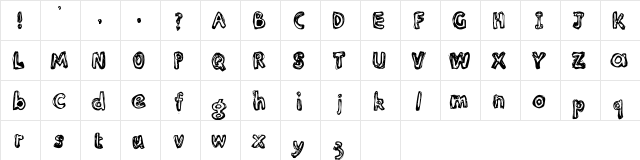
Inlines Rough
| Style | Rough |
Design Context for Inlines Typeface
Inlines trades polish for personality, using distressed and eroded forms to bring grit and attitude to creative work.
A strong fit for alternative music projects, graffiti-adjacent design, and anything that deliberately resists polish.
Pro Tip: Use Inlines at larger sizes where the texture and irregularity of each letterform can be clearly seen — it loses its character at small sizes.